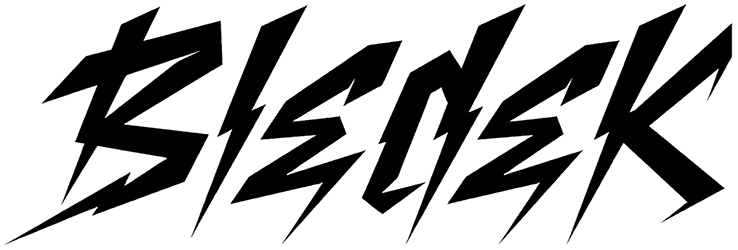
Pony Rides Font
Considering the cool and dreamy design of Pony Rides, once this lightning font is applied to your text, playfulness will be an obvious trait of your typography. Pony Rides highlights your letters with its own unique characters that seemingly are drawings of rainbows, lightning, stars, and hearts.
Though it might be designed to be intentionally a little bit hard to read, it manages to give your websites, posters, social media posts, or else a rather creative distinctive look.
THIS FONT WAS CONCEIVED AND
PRODUCED 30,000 FEET IN THE AIR!
Designed by: Xerographer Fonts